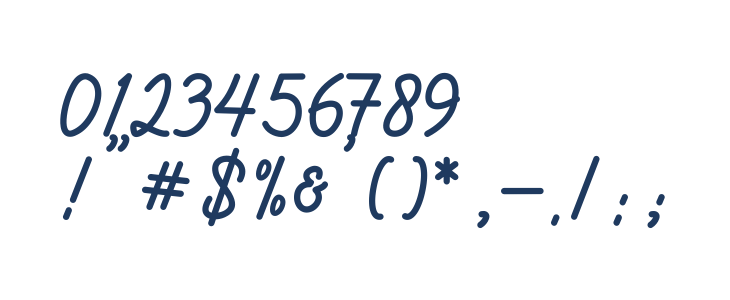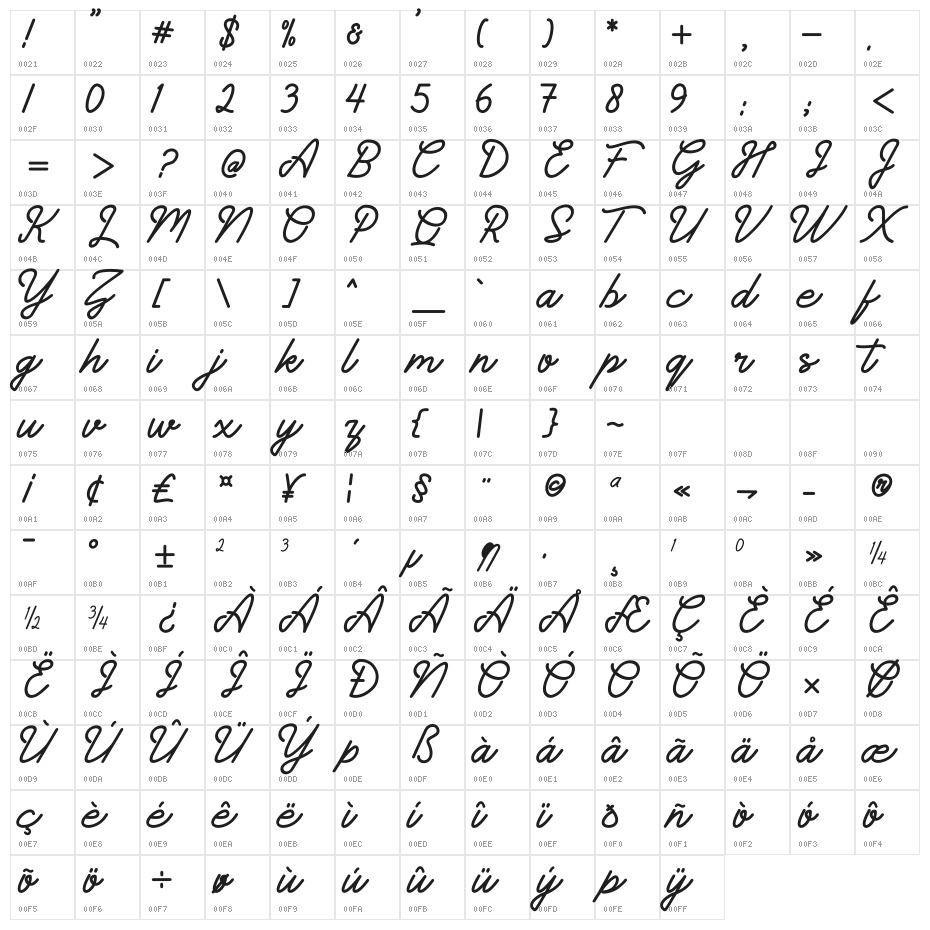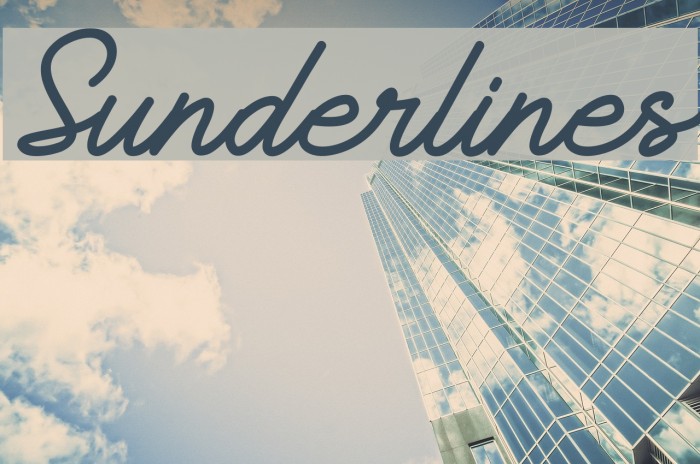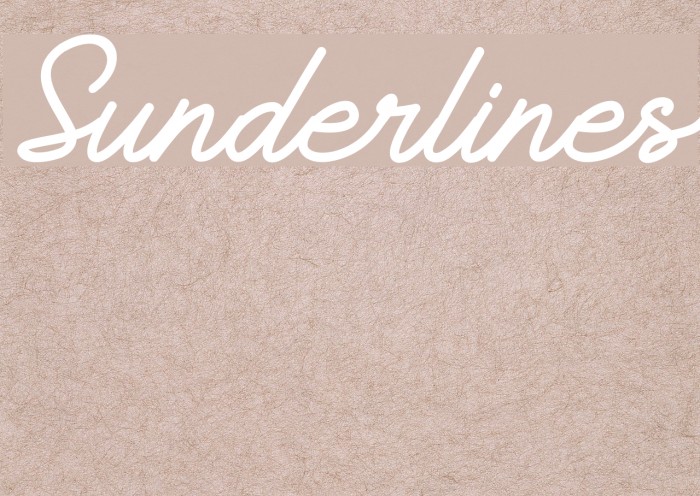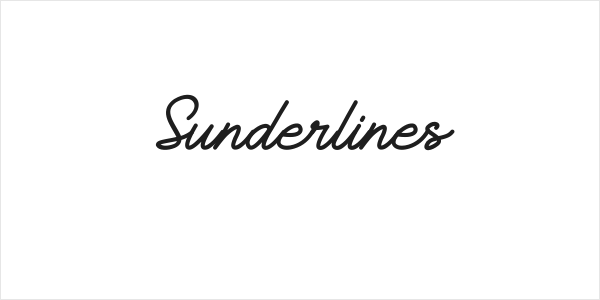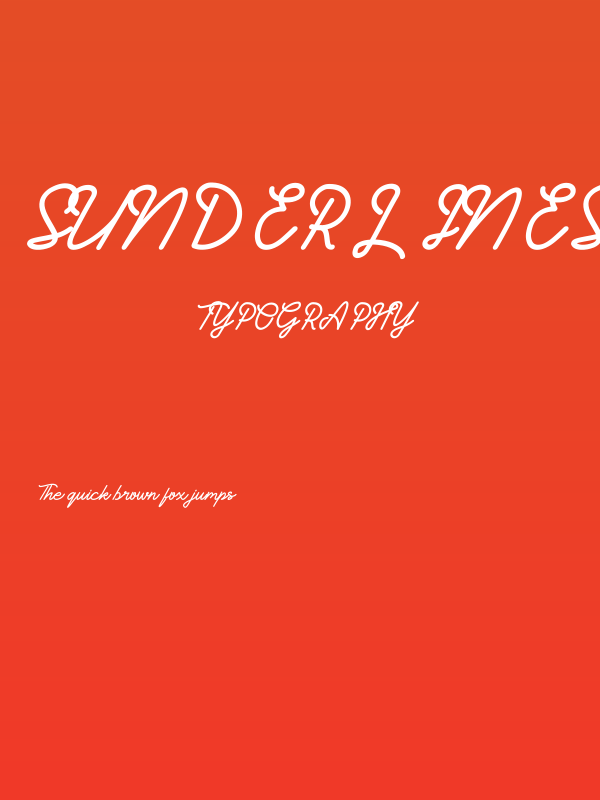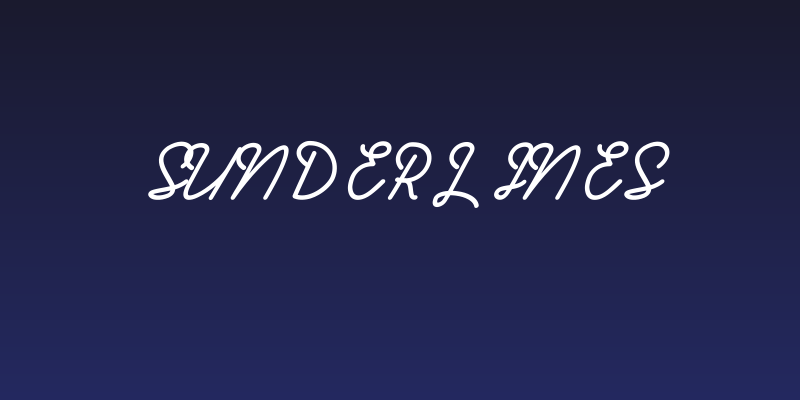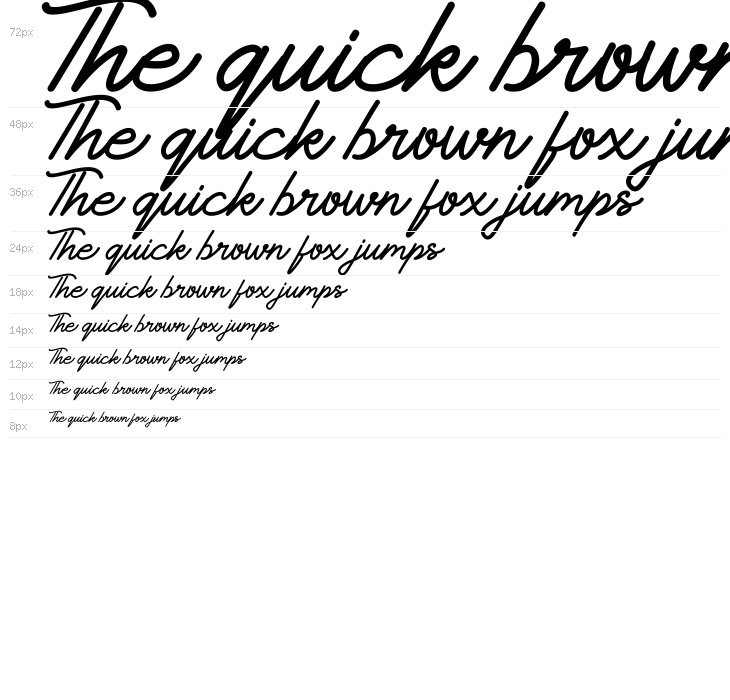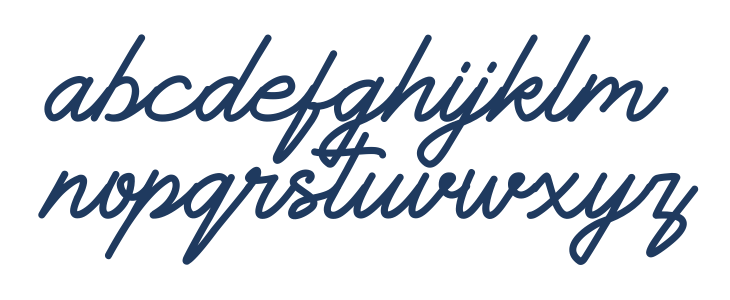
Sunderlines Font
Sunderlines Description
This font features a smooth, flowing script style that mimics elegant handwriting. The characters are connected, creating a continuous and fluid appearance. The uppercase letters are slightly larger and more pronounced, while the lowercase letters maintain a consistent flow. The numerals are clear and legible, complementing the overall cursive style. Special characters are designed to blend seamlessly with the letters, maintaining the script's aesthetic. The font's design is both sophisticated and approachable, making it suitable for a variety of creative applications.
| Overall Style | Elegant |
| Use Case | Logos, Invitations, Personal Branding |
| Proposed Projects | Ideal for wedding invitations, greeting cards, personal branding, and elegant product packaging. |